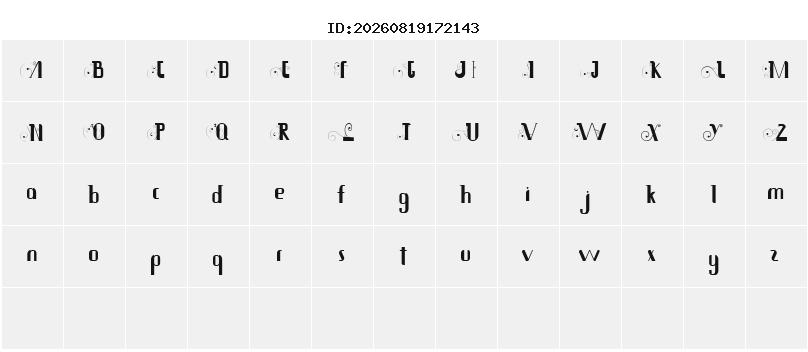
Siamesa Preview
• Font Name: Siamesa
• Font ID: pyrs: Siamesa: 2014
• Full Font Name: Siamesa
• PostScript Name: Siamesa
• Character Count: 69
• Designer: Siam
About Siamesa.ttf
Siamesa.ttf is a modern, elegant sans-serif font designed for ultimate readability and visual harmony. Perfect for branding, headlines, web design, and print materials.